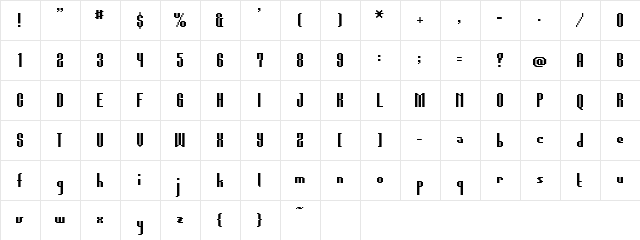
BM feather A20
Design Context for BM feather Typeface
BM feather is a composed and adaptable typeface that performs quietly and consistently across a wide range of design contexts.